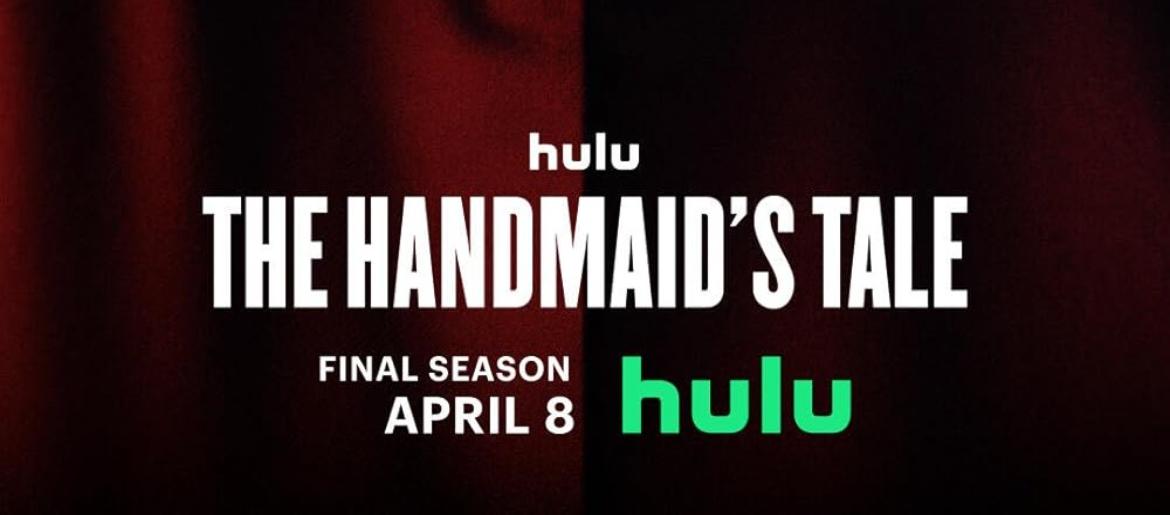
The Handmaid’s Tale Font
The Handmaid’s Tale font carries a stark, unsettling aesthetic that mirrors the show’s haunting themes. Its sharp, stripped-back lettering feels cold and deliberate, echoing the tension and control woven throughout the series. This style works especially well for designs that aim to deliver a strong emotional impact—whether for dramatic posters, awareness campaigns, or bold editorial layouts. Its simplicity is its strength, creating a visual presence that’s both chilling and unforgettable. The typeface often associated with the series is Daily Tabloid JNL.
About The Handmaid’s Tale
The Handmaid’s Tale is a television adaptation of Margaret Atwood’s iconic dystopian novel. Debuting in 2017, the series follows June Osborne as she endures life under the authoritarian regime of Gilead, a society where women are stripped of autonomy and forced into rigid roles. Through its gripping storytelling, the show explores themes of resistance, identity, and survival, shedding light on the human spirit’s determination to fight oppression. Its powerful narrative and striking visuals have made it one of the most influential dramas of the decade.